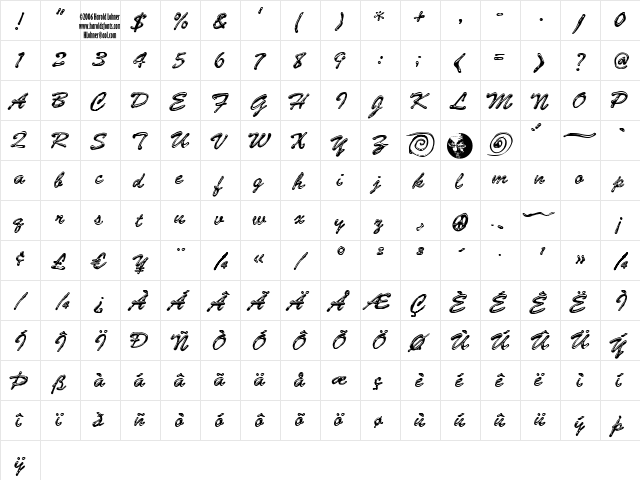
Bloop Script Regular
Design Context for Bloop Script Typeface
Bloop Script brings a calligraphic fluidity to the page — its connecting strokes and expressive curves give it an unmistakably human quality.
Font Pairing: Combine Bloop Script with a simple geometric sans for maximum contrast — the tension between flowing curves and clean structure is a classic typographic pairing.
Pro Tip: Use Bloop Script for short runs of text — names, titles, or taglines. Extended body copy in script faces tires the eye quickly.